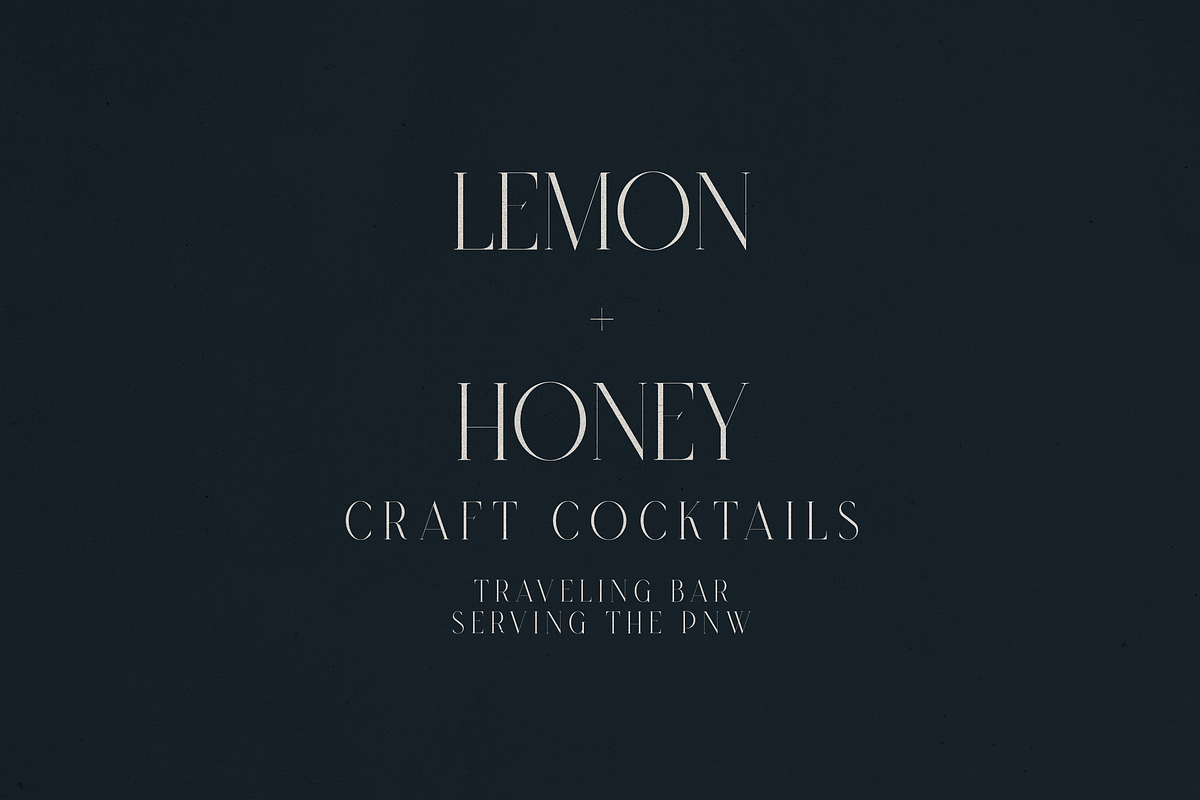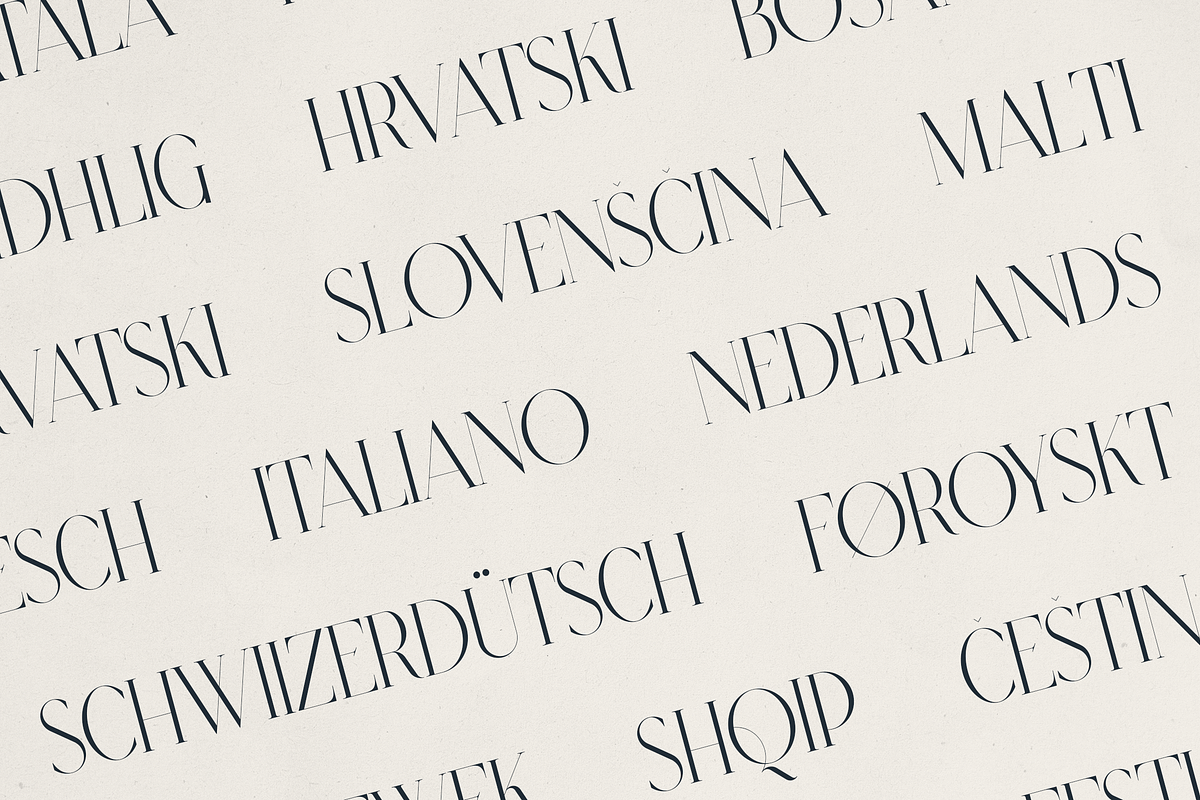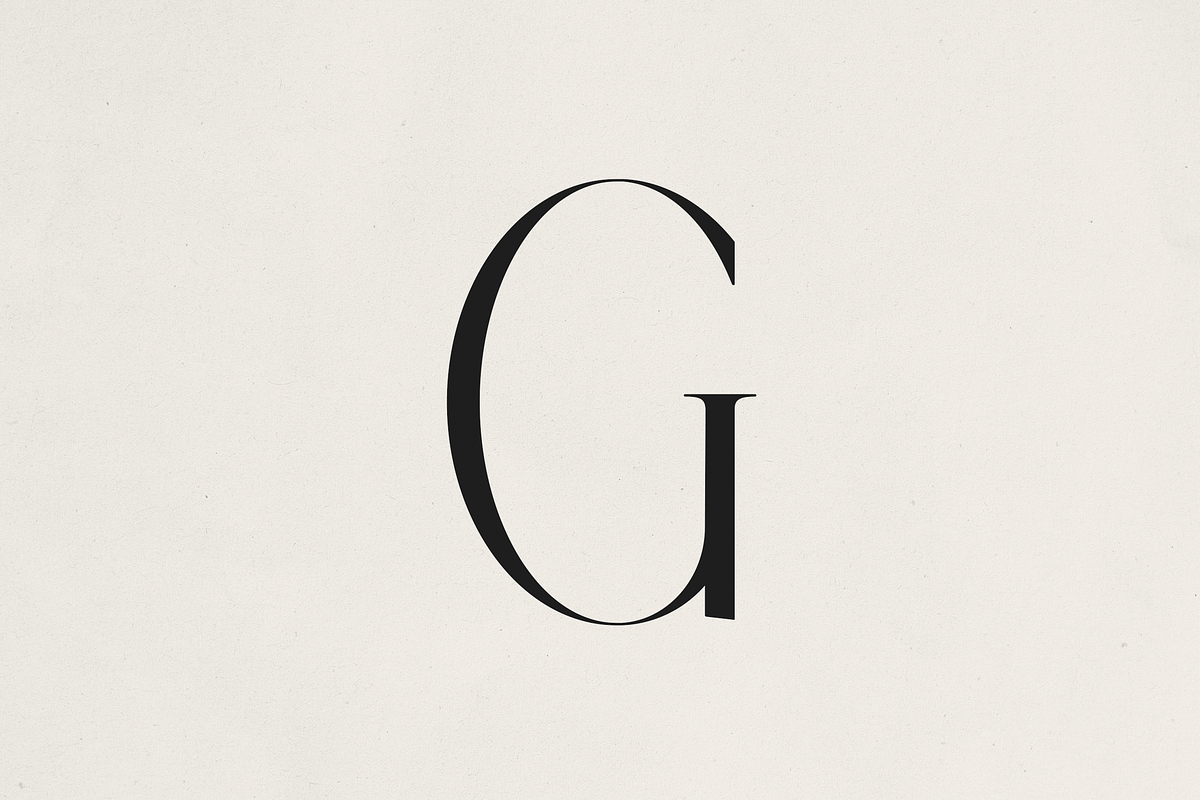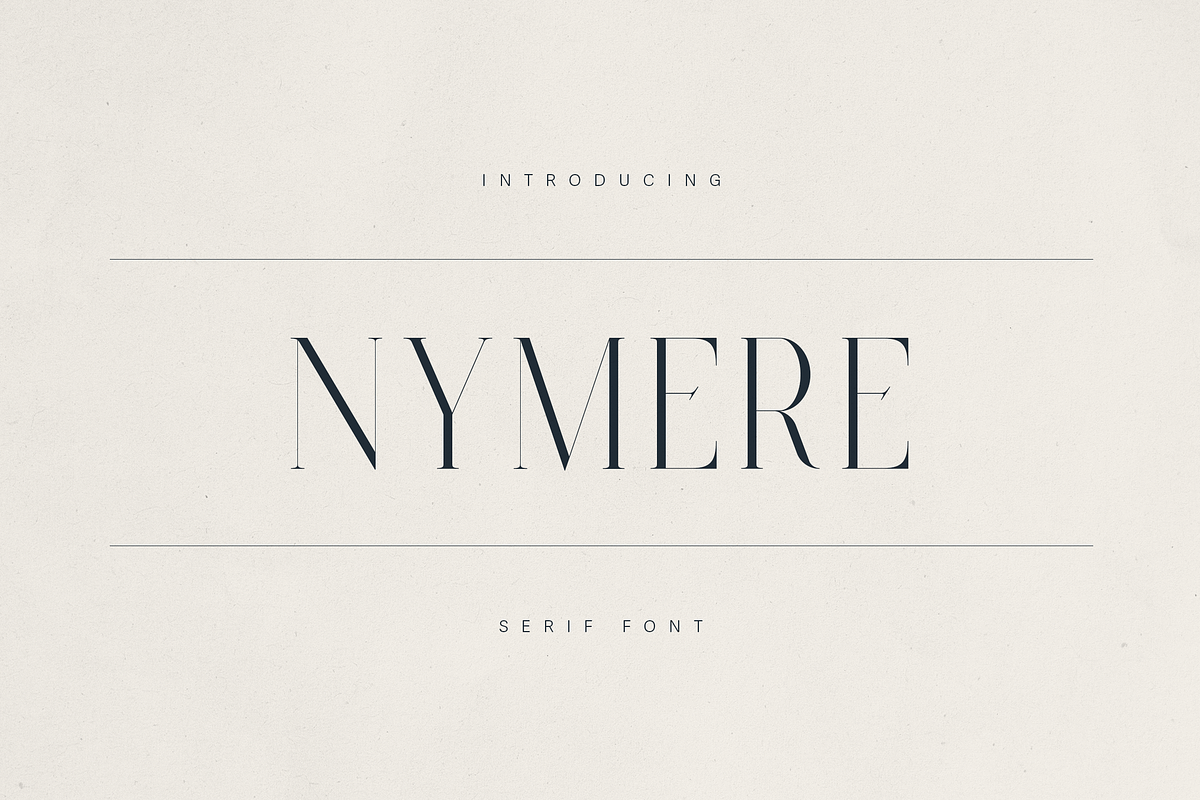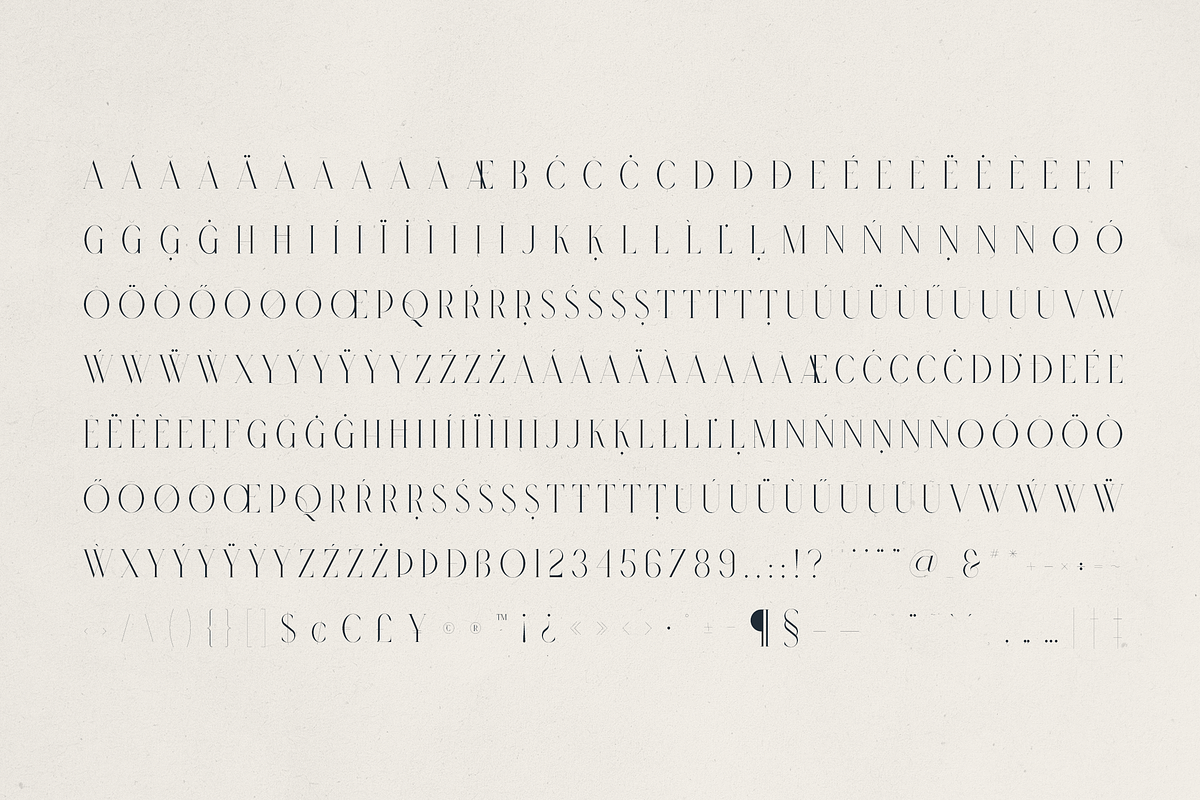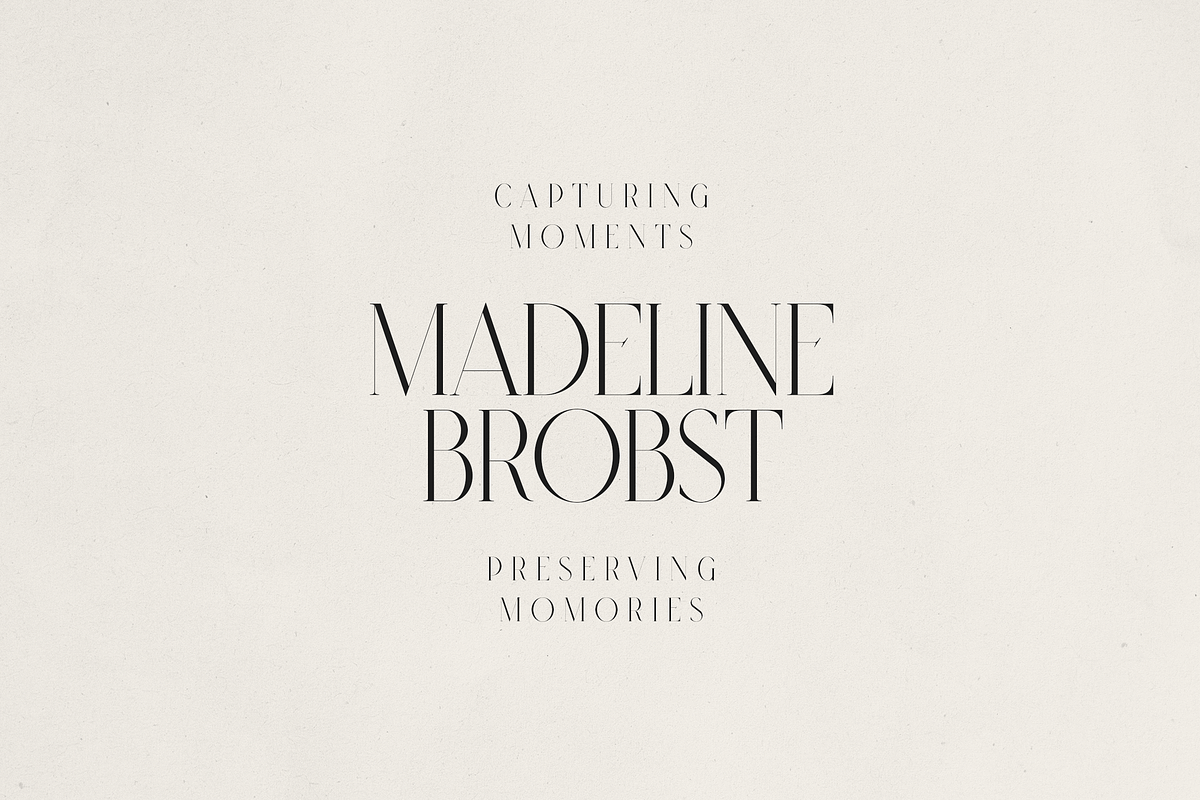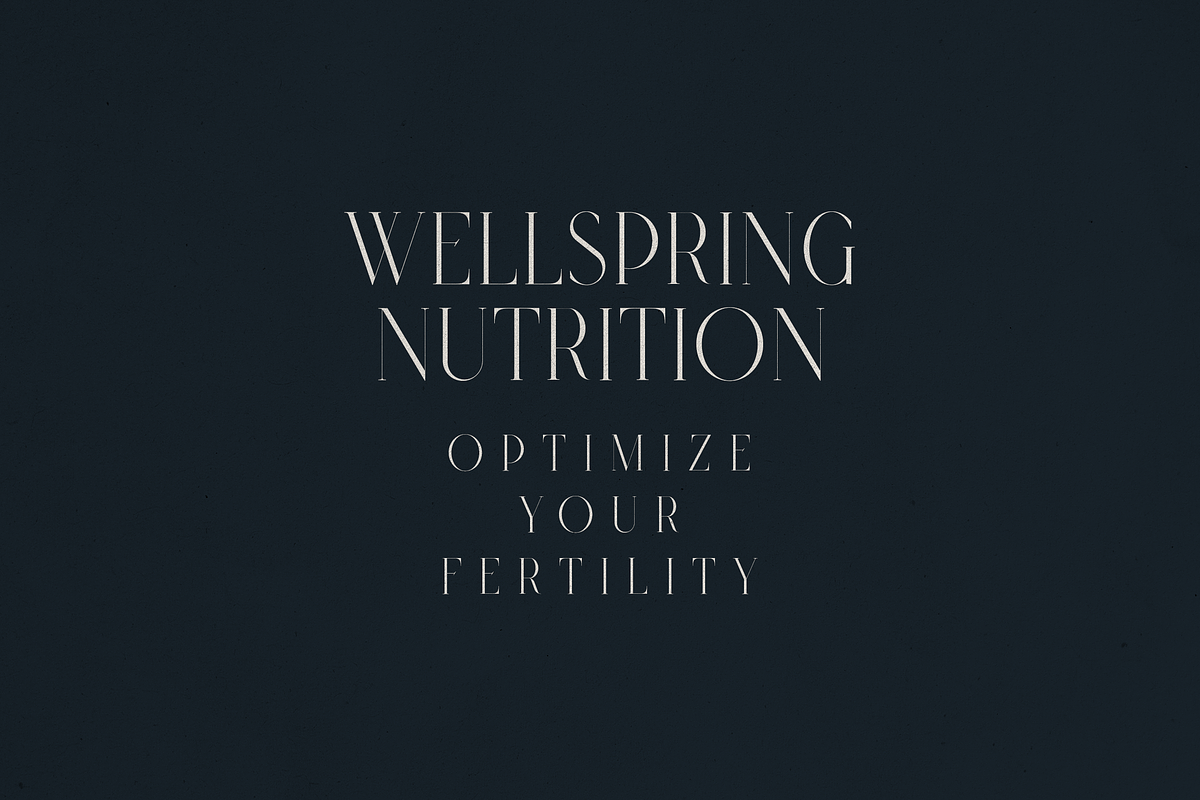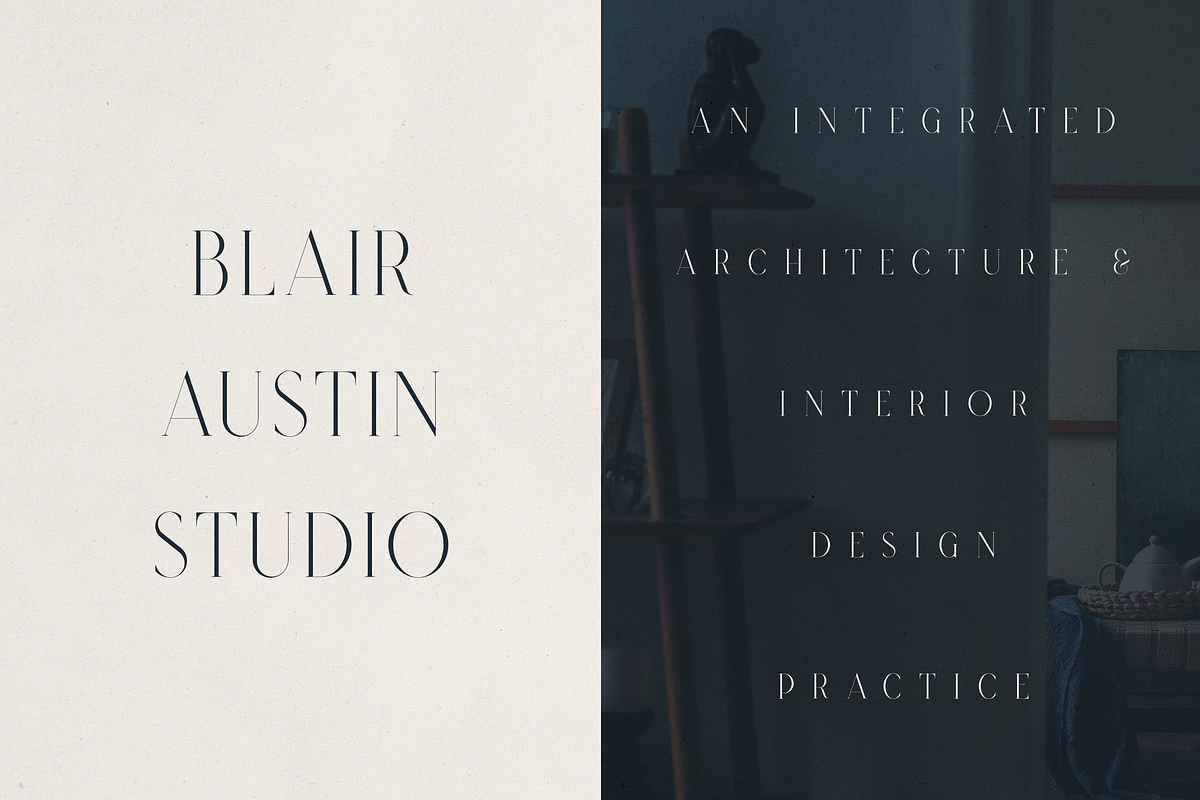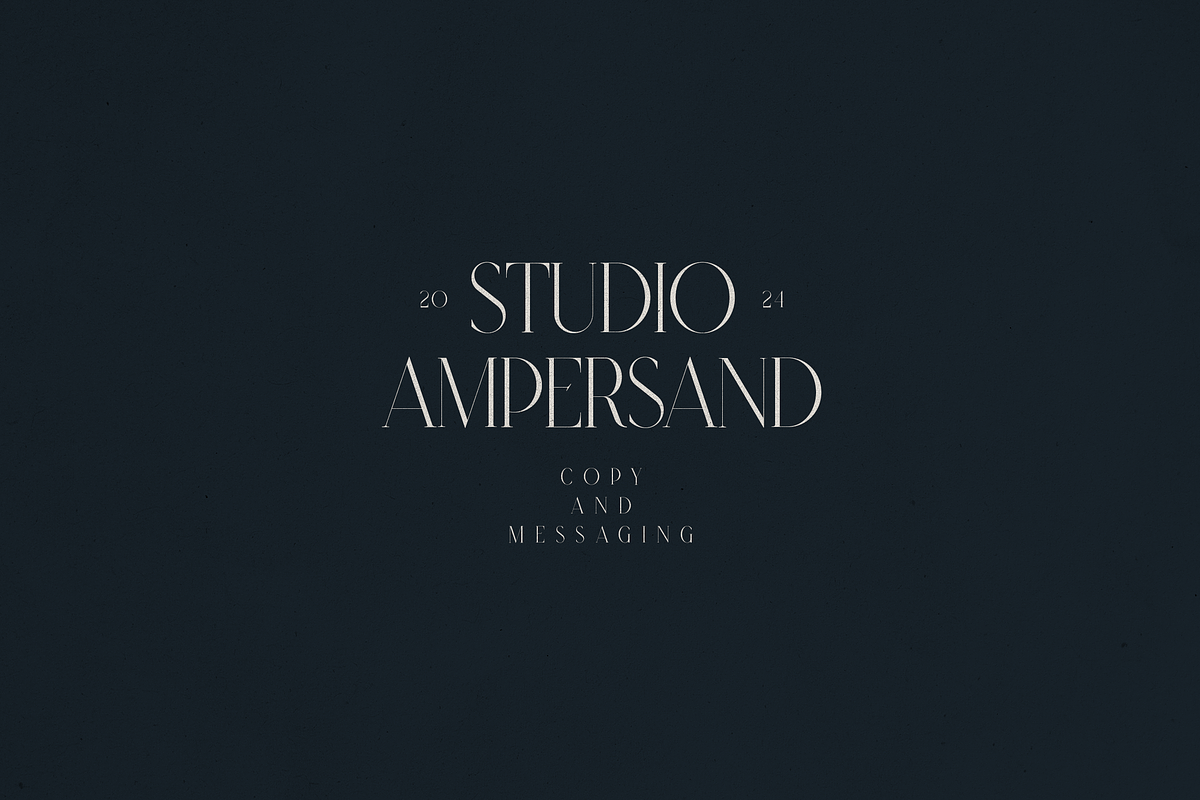
Nymere – A Modern High-Contrast Font
Nymere – A Modern High-Contrast Serif
Nymere is a sophisticated serif typeface that blends timeless elegance with contemporary refinement. Designed with high contrast between thick and thin strokes, elongated letterforms, and razor-sharp serifs, Nymere exudes both luxury and clarity.
This typeface is meticulously crafted for high-end branding, editorial design, packaging, and upscale web experiences. Its dramatic vertical rhythm and airy spacing make it perfect for impactful headlines, graceful logos, and refined typographic compositions.
- Elegant high-contrast strokes
- Thin, sculptural serifs with a modern twist
- Tall x-height for visual drama and presence
- Extensive multilingual support
- Full set of punctuation, symbols, and numerals
Whether you're designing for a fashion label, a boutique studio, or a premium lifestyle brand, Nymere adds a sense of poise and confidence that stands out without shouting.
Ideal for:
Luxury branding, editorial layouts, architecture firms, fine goods packaging, photography studios, and creative portfolios.